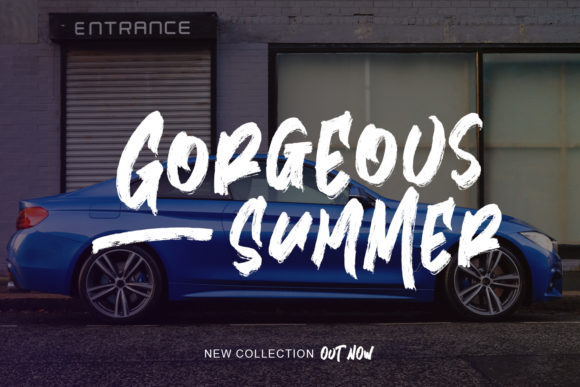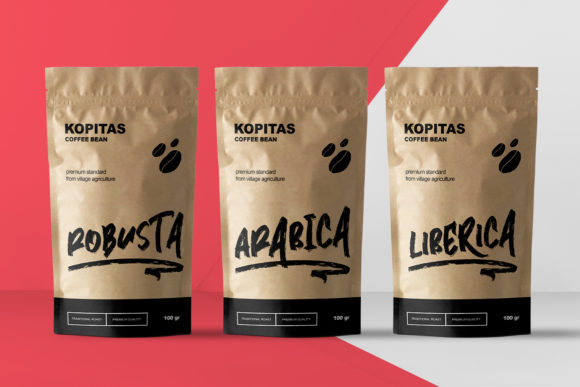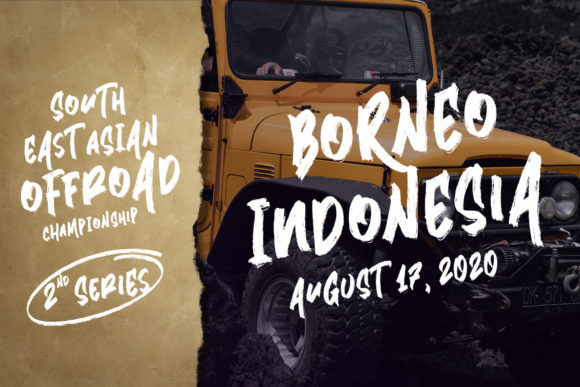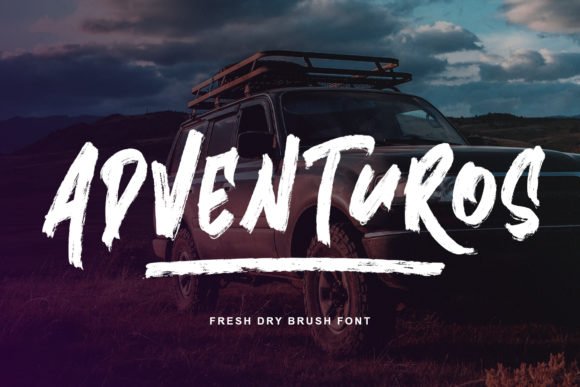
Introduction to Adventuros Font
Adventuros is a great handwritten font with a brush style.
It is great for branding, packaging, logos, cards, apparel, quotes, banner, social media, and another project that needs an urban style .
Adventuros Font offers exceptional quality and versatility, making it a valuable addition to your design toolkit. Whether you’re creating for personal projects or commercial use, Adventuros Font delivers professional results.